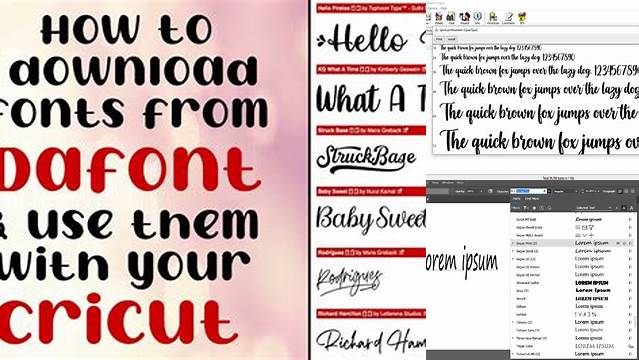
How To Download Fonts To Your Computer: A Simple Guide
Hey guys! Ever wondered how to download fonts to make your documents and designs pop? It's easier than you think! This guide will walk you through the process, step by step, so you can unleash your creativity with a fresh new typeface. Whether you're a seasoned designer or just starting out, having a variety of fonts at your fingertips is essential. From professional reports to eye-catching presentations, the right font can make all the difference. So, let's dive in and explore the world of font downloading!
2. Finding Reputable Font Sources
One of the most important steps when downloading fonts is finding reputable sources. The internet is full of websites offering free fonts, but not all of them are safe. Some may contain malware or viruses that can harm your computer. Others may offer fonts that are of poor quality or have licensing restrictions that you're not aware of. To avoid these issues, stick to well-known and trusted font providers. Some popular options include Google Fonts, Adobe Fonts, Font Squirrel, and MyFonts. These websites offer a wide selection of high-quality fonts, both free and paid, and they have a reputation for being safe and reliable. Google Fonts is particularly great for beginners, as it offers a vast library of free fonts that are easy to download and use. Adobe Fonts is another excellent option, especially if you're an Adobe Creative Cloud subscriber, as it's included in your subscription. Font Squirrel is a fantastic resource for free fonts that are also licensed for commercial use, which means you can use them in your projects without worrying about copyright issues. MyFonts is a premium font marketplace with a huge selection of fonts from various foundries, offering both free and paid options. When you're browsing these sites, make sure to read the licensing information carefully to understand how you can use the fonts you download. Some fonts may be free for personal use but require a commercial license for business projects. Others may have restrictions on how you can modify or redistribute the font files. By choosing reputable sources and paying attention to licensing, you can ensure that you're downloading fonts safely and legally. Remember, the effort you put into finding reliable sources will pay off in the long run, saving you from potential headaches and ensuring your projects look their best. So, take your time, explore the options, and make informed choices.
3. Using Google Fonts
Google Fonts is a treasure trove for anyone looking to download fonts for free. It's a vast library of open-source fonts that are incredibly easy to use and compatible with most systems. To get started, simply visit the Google Fonts website. You'll find a clean and intuitive interface that allows you to browse fonts by category, style, and popularity. You can even type in sample text to see how a font will look in your own projects. Once you've found a font you like, click on it to view its details. You'll see different weights and styles available, such as regular, bold, italic, and more. To download the font, click the "Download family" button. The font files will be downloaded in a zip file. Extract the contents of the zip file, and you'll find the .ttf or .otf font files. Now, you can install these fonts on your computer. The process for installing fonts varies slightly depending on your operating system, but it's generally quite straightforward. On Windows, you can right-click on the font file and select "Install." On macOS, you can double-click the font file, and it will open in Font Book, where you can click the "Install Font" button. Google Fonts also offers a convenient way to embed fonts directly into your website using a simple code snippet. This eliminates the need to download the fonts and upload them to your server, making it a great option for web designers. With its vast selection of high-quality fonts and user-friendly interface, Google Fonts is an excellent resource for anyone looking to expand their font library. It's a fantastic starting point for beginners and a go-to resource for experienced designers alike. The best part? It's completely free, so you can experiment with different fonts without breaking the bank. So, whether you're working on a personal project or a professional design, Google Fonts is a resource you'll want to keep in your back pocket.
7. Troubleshooting Font Issues
Sometimes, even when you follow all the steps correctly, you might run into issues when downloading fonts. Don't worry, it happens to the best of us! Let's troubleshoot some common problems and how to fix them. One common issue is that the font doesn't appear in your application's font list after you've installed it. This can be frustrating, but there are a few things you can try. First, make sure you've actually installed the font correctly. Double-check that the font file is in the correct folder (C:\Windows\Fonts on Windows, or Font Book on macOS) and that it's not corrupted. Next, try restarting the application you're using. Sometimes, applications need to be restarted to recognize newly installed fonts. If that doesn't work, try restarting your computer. This can help refresh the system's font cache and ensure that the font is properly loaded. Another issue you might encounter is font corruption. This can happen if the font file is damaged during the download process or if there's a problem with your system's font cache. If you suspect font corruption, try downloading the font again from a reputable source. If the problem persists, you may need to clear your font cache. The process for clearing the font cache varies depending on your operating system, so do a quick search online for instructions specific to your system. Sometimes, fonts may not display correctly in certain applications. This can be due to compatibility issues or font format problems. If you're using an older application, it may not support newer font formats like OpenType (.otf). In this case, try using a TrueType (.ttf) version of the font instead. If you're still having trouble, check the application's documentation or support resources for troubleshooting tips. Dealing with font issues can be a bit of a headache, but with a little patience and persistence, you can usually resolve the problem. Remember to always download fonts from reputable sources and keep your system's font cache clean to prevent issues from occurring in the first place.
8. Using Font Management Software
If you're a font enthusiast with a growing collection, you might find that managing your fonts becomes a bit of a hassle. That's where font management software comes in! These tools can help you organize, activate, and deactivate fonts, making it easier to find the perfect typeface for your projects. Font management software can also help you avoid font conflicts, which can occur when you have multiple versions of the same font installed. By activating only the fonts you need for a specific project, you can keep your system running smoothly and prevent unexpected issues. There are several font management software options available, both free and paid. Some popular choices include FontBase, NexusFont, and FontExplorer X Pro. FontBase is a free and user-friendly option that's great for beginners. It allows you to preview fonts, create font sets, and activate/deactivate fonts with ease. NexusFont is another free option that offers a wide range of features, including font tagging, duplicate font detection, and font backups. FontExplorer X Pro is a paid option that's geared towards professional designers. It offers advanced features like font auto-activation, font server support, and integration with Adobe Creative Cloud applications. When choosing font management software, consider your specific needs and budget. If you're just starting out, a free option like FontBase or NexusFont might be a good choice. If you're a professional designer with a large font library, you might benefit from the advanced features of a paid option like FontExplorer X Pro. Using font management software can save you time and frustration by making it easier to find and manage your fonts. It can also help you keep your system running smoothly and prevent font-related issues. So, if you're serious about fonts, consider investing in a good font management tool. It's a small investment that can pay off big in terms of productivity and organization.
9. Creating Font Pairings
Choosing the right font for your project is important, but did you know that pairing fonts effectively can take your designs to the next level? Font pairing is the art of combining two or more fonts that complement each other, creating a visually appealing and harmonious design. A well-chosen font pairing can enhance readability, establish a visual hierarchy, and convey the right mood and tone for your project. On the other hand, a poorly chosen font pairing can be jarring and confusing, detracting from your message. So, how do you create effective font pairings? One approach is to combine fonts from different font families. For example, you might pair a serif font (like Times New Roman or Garamond) with a sans-serif font (like Arial or Helvetica). Serif fonts are typically used for body text, as their serifs (the small strokes at the ends of the letters) make them easier to read in large blocks of text. Sans-serif fonts are often used for headings and titles, as their clean lines make them stand out. Another approach is to pair fonts with contrasting styles. For example, you might pair a bold, modern font with a delicate, script font. The contrast in styles can create visual interest and make your design more dynamic. However, it's important to use contrast judiciously. Too much contrast can be overwhelming, so aim for a balance between contrast and harmony. You can also pair fonts from the same font family but with different weights or styles. For example, you might pair a bold version of a font with a regular or light version. This can create a subtle visual hierarchy without introducing too much contrast. There are many online resources that can help you find font pairings. Websites like FontPair and Canva's Font Combinations tool offer suggestions for fonts that work well together. You can also experiment with different font pairings on your own. Try downloading a few different fonts and see how they look together in your designs. The key is to find fonts that complement each other and convey the message you want to send.
10. Font Weight and Style
When you download fonts, you'll often notice that they come in various weights and styles. Understanding these variations is crucial for effective typography and design. Font weight refers to the thickness of the font's strokes. Common font weights include light, regular, bold, and extra bold. The weight you choose can impact the readability and visual impact of your text. Lighter weights are often used for body text, as they're easier on the eyes for long passages. Bolder weights are typically used for headings and titles, as they help draw attention and create a visual hierarchy. Font style refers to the variations within a font family, such as italic, oblique, and condensed. Italic is a slanted version of the font, often used for emphasis or to differentiate text. Oblique is similar to italic but is typically a more artificial slant, often created by simply slanting the regular font. Condensed fonts are narrower versions of the font, allowing you to fit more text in a limited space. When choosing font weight and style, consider the purpose of your text and the overall design. For body text, readability is paramount, so stick to lighter weights and avoid overly stylized fonts. For headings and titles, you can be more adventurous with font weight and style, but make sure the chosen variations complement the overall design. Using different font weights and styles can help you create a visual hierarchy in your design. By using bolder weights for headings and lighter weights for body text, you can guide the reader's eye and make your content more engaging. It's also important to be consistent with your use of font weight and style. Choose a few variations within a font family and stick to them throughout your project. This will create a cohesive and professional look. Experiment with different font weights and styles to see how they impact your designs. Try using bold for keywords or phrases you want to emphasize, or italic for quotes or citations. The possibilities are endless, so have fun and explore the world of font variations!
11. Web Fonts vs. Desktop Fonts
When you're downloading fonts, you might encounter the terms "web fonts" and "desktop fonts." It's important to understand the difference between these two types of fonts, as they're designed for different purposes. Desktop fonts are the traditional fonts that you install on your computer's operating system. These fonts are used for creating documents, presentations, and other printed materials. They're also used by desktop applications like word processors, graphic design software, and web design tools. Web fonts, on the other hand, are specifically designed for use on websites. They're optimized for web browsers and are typically served from a web server. This means that website visitors don't need to have the font installed on their computer in order to see it. Web fonts are typically available in formats like WOFF (Web Open Font Format) and WOFF2, which are designed to be compressed and efficient for web use. Using web fonts can significantly improve the appearance of your website, as you're not limited to the standard system fonts that everyone has installed. However, it's important to choose web fonts carefully, as using too many fonts or fonts that are too large can slow down your website's loading time. When downloading fonts for web use, make sure you're getting the correct format (WOFF or WOFF2) and that you have the necessary licenses to use the font on your website. Many font foundries offer web font licenses separately from desktop font licenses. Services like Google Fonts and Adobe Fonts make it easy to use web fonts on your website. They provide code snippets that you can add to your website's HTML to load the fonts automatically. This eliminates the need to download the font files and upload them to your server. In summary, desktop fonts are for use on your computer, while web fonts are for use on websites. Choose the appropriate type of font for your intended use, and make sure you have the necessary licenses.
12. Free vs. Paid Fonts
One of the first decisions you'll face when downloading fonts is whether to go for free or paid options. Both free and paid fonts have their pros and cons, so it's important to weigh your options carefully. Free fonts are a great option for personal projects, budget-conscious designers, and anyone just starting out. There are many websites that offer high-quality free fonts, such as Google Fonts and Font Squirrel. Free fonts can be a great way to expand your font library without spending any money. However, it's important to be aware of the limitations of free fonts. Some free fonts may have limited character sets or styles, and they may not be suitable for commercial use. Always check the licensing terms before using a free font in a project. Paid fonts, on the other hand, offer a wider range of options and often come with more features and better support. Paid fonts are typically designed by professional type designers and are of higher quality than most free fonts. They also often come with more weights, styles, and language support. If you're working on a professional project or need a specific font for branding purposes, paid fonts are often the best choice. Paid fonts also come with commercial licenses, which allow you to use the font in a wider range of projects without worrying about copyright issues. When choosing between free and paid fonts, consider your budget, the scope of your project, and the quality you need. If you're working on a personal project or have a limited budget, free fonts can be a great option. But if you need a high-quality font for a professional project, paid fonts are usually the way to go. Remember to always download fonts from reputable sources, whether they're free or paid. This will help ensure that you're getting a high-quality font and that you're not downloading any malware or viruses.
13. Font File Sizes
When you download fonts, you'll notice that the file sizes can vary significantly. Font file size is an important consideration, especially for web fonts, as it can impact website loading times. Larger font files can slow down your website, which can negatively affect user experience and SEO. There are several factors that can influence font file size. The font format (e.g., TTF, OTF, WOFF, WOFF2) plays a role, as some formats are more compressed than others. The number of characters and glyphs in the font also affects file size. Fonts with extensive character sets and ligatures tend to be larger. Font complexity and design also contribute to file size. Intricate and detailed fonts generally have larger file sizes than simpler fonts. For web fonts, it's crucial to optimize font file sizes to ensure fast loading times. WOFF and WOFF2 are the preferred formats for web fonts, as they offer excellent compression. You can also use font subsetting to reduce file size. Font subsetting involves removing unused characters from the font file, such as characters for languages you don't support. This can significantly reduce the file size without affecting the appearance of your website. Another technique for optimizing font file size is to use variable fonts. Variable fonts allow you to pack multiple font weights and styles into a single font file, reducing the overall file size compared to using separate font files for each weight and style. When downloading fonts for web use, always check the file size and try to optimize it as much as possible. Use WOFF or WOFF2 format, consider font subsetting, and explore variable fonts. By optimizing font file sizes, you can ensure that your website loads quickly and provides a great user experience. For desktop fonts, file size is less of a concern, but it's still a good idea to keep your font library organized and avoid downloading fonts you don't need.
14. Previewing Fonts
Before you commit to downloading fonts, it's always a good idea to preview them. Previewing fonts allows you to see how they look in different sizes and styles, and whether they're a good fit for your project. Most font websites and font management software offer font preview tools. These tools allow you to type in sample text and see how it looks in the font. You can usually adjust the font size, weight, and style to get a better sense of how the font will look in different contexts. When previewing fonts, pay attention to the font's readability, legibility, and overall aesthetic. Is the font easy to read at different sizes? Does it have a clean and professional look? Does it convey the mood and tone you're aiming for? It's also important to preview the font in the context of your project. If you're designing a website, see how the font looks on different devices and browsers. If you're designing a logo, see how the font looks at different scales. Some font websites offer advanced preview features, such as the ability to preview font pairings and see how the font looks with different color combinations. These features can be helpful for making design decisions. Font management software often includes advanced preview features as well. You can preview fonts side-by-side, compare different versions of the same font, and create font sets for different projects. Before you download fonts, take the time to preview them thoroughly. This will help you avoid downloading fonts that you don't need and ensure that you choose fonts that are a good fit for your projects. Previewing fonts is an essential step in the font selection process, and it can save you time and effort in the long run.
15. Font Foundries and Designers
When you start downloading fonts regularly, you'll likely come across the names of font foundries and designers. Font foundries are companies that design and sell fonts, while font designers are the individuals who create the fonts themselves. Getting to know font foundries and designers can help you discover new and interesting fonts, and it can also help you support the creators of the fonts you love. There are many different font foundries and designers out there, each with their own unique style and approach. Some foundries specialize in specific types of fonts, such as display fonts or script fonts, while others offer a wider range of styles. Some designers are known for their classic and elegant typefaces, while others are known for their more experimental and contemporary designs. Exploring the work of different font foundries and designers can be a great way to expand your font knowledge and discover new fonts that you might not have found otherwise. Many font foundries have websites where you can browse their fonts, learn about their designers, and read about their design process. You can also follow font foundries and designers on social media to stay up-to-date on their latest releases and projects. When you download fonts from a font foundry or designer, you're not just buying a font file; you're supporting the creative work of the people who made it. Font design is a skilled and time-consuming process, and font designers deserve to be compensated for their work. By purchasing fonts from reputable foundries and designers, you're helping to ensure that they can continue to create beautiful and innovative typefaces. If you're looking for inspiration, consider checking out some well-known font foundries like Hoefler&Co, Monotype, and Adobe Type. You can also explore the work of individual font designers like Jessica Hische, Tobias Frere-Jones, and Erik Spiekermann. Getting to know font foundries and designers is a great way to deepen your appreciation for typography and support the creative community.
16. OpenType Features
When you download fonts, you might come across the term "OpenType features." OpenType is a font format that offers a wide range of advanced typographic features, allowing for more sophisticated and nuanced typography. Understanding OpenType features can help you unlock the full potential of your fonts and create more visually appealing designs. OpenType features include things like ligatures, swashes, stylistic alternates, and contextual alternates. Ligatures are special characters that combine two or more letters into a single glyph, such as "fi" or "fl." Swashes are decorative flourishes that can be added to certain characters. Stylistic alternates are alternative glyphs for certain characters that can be used to create different looks. Contextual alternates are glyphs that change depending on the surrounding characters, allowing for more natural-looking typography. Not all fonts support OpenType features, so it's important to check whether a font has these features before using it in a project. You can usually find this information on the font foundry's website or in the font's documentation. To access OpenType features in your applications, you'll typically need to use a program that supports them, such as Adobe InDesign, Adobe Illustrator, or QuarkXPress. These programs allow you to enable and disable OpenType features through their typography panels. Using OpenType features can add a touch of elegance and sophistication to your designs. Ligatures can make text more readable and visually appealing, while swashes and stylistic alternates can add a unique flair. Contextual alternates can help create more natural-looking typography, especially in script fonts. When downloading fonts, consider choosing fonts that support OpenType features if you want to take your typography to the next level. Experiment with different OpenType features to see how they can enhance your designs. However, it's important to use these features judiciously, as overuse can make your typography look cluttered and overwhelming.
17. Variable Fonts
Variable fonts are a relatively new font technology that's changing the way we think about typography. When you download fonts, you might encounter variable fonts, and it's worth understanding what they are and how they work. Variable fonts allow you to pack multiple font weights, styles, and other variations into a single font file. This is a significant improvement over traditional font formats, where each weight and style requires a separate font file. Variable fonts use a system of axes to define the different variations within a font. Common axes include weight, width, slant, and optical size. By adjusting these axes, you can create a wide range of font variations from a single font file. For example, you could adjust the weight axis to create a light, regular, bold, or extra bold version of the font. Or you could adjust the width axis to create a condensed or expanded version. The main advantage of variable fonts is their file size. Because they pack multiple variations into a single file, they're typically much smaller than traditional font formats. This can be a significant benefit for web fonts, as smaller file sizes lead to faster loading times. Variable fonts also offer greater flexibility and control over typography. You can fine-tune font variations to perfectly match your design needs, rather than being limited to the predefined weights and styles. Not all applications and browsers fully support variable fonts yet, but support is growing rapidly. Most modern browsers support variable fonts, and many design applications are starting to add support as well. When downloading fonts, consider choosing variable fonts if you want to take advantage of their file size benefits and typographic flexibility. Variable fonts are the future of typography, and they're worth exploring if you're serious about font design and web performance.
18. Font Embedding
Font embedding is the process of including font files within a document or website. This ensures that the document or website will display correctly, even if the user doesn't have the font installed on their computer. When you download fonts and use them in your projects, you need to consider how you'll handle font embedding. There are several ways to embed fonts, each with its own advantages and disadvantages. For documents, such as PDFs, font embedding is typically done automatically by the application that creates the document. When you save a document as a PDF, the application will usually embed the fonts used in the document, ensuring that it will display correctly on any computer. For websites, font embedding is a bit more complex. You can use web fonts, which are specifically designed for use on websites, or you can use CSS to embed fonts directly into your website's code. Web fonts are the preferred method for embedding fonts on websites, as they're optimized for web browsers and offer better performance. You can use services like Google Fonts or Adobe Fonts to easily embed web fonts on your website. Another option is to use the @font-face rule in CSS to embed fonts directly into your website's code. This allows you to use any font you want, but it can be more complex to set up and may not be as performant as using web fonts. When downloading fonts for web use, make sure you have the necessary licenses to embed the fonts on your website. Some font licenses restrict font embedding, so it's important to check the licensing terms before using a font. Font embedding is an essential part of ensuring that your documents and websites display correctly. By embedding fonts, you can ensure that your designs look the way you intended, regardless of the user's system or browser.
19. Font Converters
Sometimes, you might need to convert a font from one format to another. This is where font converters come in handy. Font converters are tools that allow you to change the format of a font file, such as converting a TTF font to an OTF font or vice versa. When you download fonts, you might encounter different font formats, and you might need to convert them to a format that's compatible with your applications or website. There are several reasons why you might need to use a font converter. You might need to convert a font to a web-friendly format, such as WOFF or WOFF2. Or you might need to convert a font to a format that's compatible with an older application. There are many online font converters available, both free and paid. Some popular options include Online Font Converter, Font Squirrel's Webfont Generator, and TransType. Online font converters are typically easy to use. You simply upload your font file, choose the desired output format, and click a button to convert the font. Some online converters offer additional options, such as font subsetting and hinting. Desktop font converters offer more advanced features and control over the conversion process. They're typically paid tools, but they can be worth the investment if you need to convert fonts regularly. When using a font converter, it's important to choose a reputable tool and to check the licensing terms of the font you're converting. Some font licenses restrict font conversion, so it's important to make sure you have the necessary permissions. If you're downloading fonts for web use, it's generally best to use a web font generator that's specifically designed for creating web fonts. These tools will optimize the font files for web browsers and ensure that they load quickly. Font converters can be valuable tools for anyone who works with fonts regularly. They allow you to adapt fonts to different formats and ensure compatibility across different platforms and applications.
20. Font Backups
If you're a font enthusiast with a large collection, it's crucial to back up your fonts regularly. Font backups protect your font library from data loss due to hardware failures, software corruption, or accidental deletion. When you download fonts, you're building a valuable resource, and it's important to safeguard it. There are several ways to back up your fonts. You can manually copy your font files to an external hard drive, a cloud storage service, or a network drive. This is a simple and straightforward method, but it can be time-consuming if you have a large font library. You can also use font management software to back up your fonts. Some font management tools offer built-in backup features that allow you to easily create backups of your font library. Another option is to use a dedicated backup software that can automatically back up your entire computer, including your fonts. When creating font backups, it's important to store the backups in a safe and secure location. External hard drives and cloud storage services are both good options. If you're storing your backups online, make sure to use a reputable cloud storage provider with strong security measures. It's also a good idea to create multiple backups and store them in different locations. This will provide an extra layer of protection in case one of your backups fails. Regularly test your backups to make sure they're working correctly. Try restoring a few fonts from your backup to make sure the process is smooth and that the restored fonts are functioning properly. When you download fonts, make it a habit to back them up immediately. This will ensure that you don't lose your newly acquired fonts in case of a data loss event. Font backups are an essential part of font management. By backing up your fonts regularly, you can protect your valuable font library and avoid the frustration of losing your favorite typefaces.
21. Font Organization
Once you start downloading fonts regularly, your font library can quickly become overwhelming. That's why it's essential to have a good font organization system in place. Organizing your fonts will make it easier to find the fonts you need, prevent font conflicts, and keep your system running smoothly. There are several ways to organize your fonts. You can organize them by font family, by style, by project, or by any other criteria that makes sense to you. One common method is to organize fonts by font family. This involves creating folders for each font family and storing the different weights and styles of that family within the folder. For example, you might have a folder for Arial, with subfolders for Arial Regular, Arial Bold, Arial Italic, and so on. Another method is to organize fonts by style, such as serif, sans-serif, script, and display. This can be helpful if you often search for fonts based on their style. You can also organize fonts by project. This involves creating folders for each project and storing the fonts used in that project within the folder. This can be helpful if you want to keep track of the fonts you've used in different projects. Font management software can also help you organize your fonts. These tools allow you to create font sets, tag fonts, and search for fonts based on various criteria. When organizing your fonts, it's important to be consistent with your naming conventions and folder structure. This will make it easier to find fonts in the future. It's also a good idea to remove any fonts you don't need. This will free up disk space and prevent font conflicts. Regularly review your font library and delete any fonts you no longer use. When you download fonts, take a few minutes to organize them into your existing system. This will save you time and frustration in the long run. Font organization is an ongoing process. As you add more fonts to your library, it's important to maintain your organization system to keep your fonts manageable.
22. Font Naming Conventions
When you download fonts, you'll notice that they have specific names. Understanding font naming conventions can help you identify and organize your fonts more effectively. Font names typically consist of several parts, including the font family name, the font weight, the font style, and sometimes other modifiers. The font family name is the main name of the font, such as Arial, Times New Roman, or Helvetica. The font weight indicates the thickness of the font's strokes, such as Regular, Bold, Light, or Extra Bold. The font style indicates the font's slant or other variations, such as Italic, Oblique, or Condensed. Other modifiers may be included in the font name to indicate specific features or versions of the font, such as Pro, Cyrillic, or WGL. Font names can sometimes be confusing, as different font foundries may use different naming conventions. However, there are some general rules that are commonly followed. Regular weight fonts are often simply named after the font family, such as Arial Regular or Times New Roman. Bold weight fonts are typically indicated by the word "Bold" in the font name, such as Arial Bold or Times New Roman Bold. Italic style fonts are typically indicated by the word "Italic" in the font name, such as Arial Italic or Times New Roman Italic. Oblique style fonts are similar to italic fonts, but they're often created by simply slanting the regular font. They're typically indicated by the word "Oblique" in the font name. Condensed fonts are narrower versions of the font, and they're typically indicated by the word "Condensed" in the font name. When you download fonts, pay attention to the font names and try to understand the different parts of the name. This will help you identify the font's characteristics and organize it more effectively. It's also a good idea to use consistent naming conventions when organizing your fonts. This will make it easier to find the fonts you need in the future.
23. Font Metrics
Font metrics are the measurements that define the size and spacing of characters in a font. Understanding font metrics can help you create more consistent and visually appealing typography. When you download fonts and use them in your designs, font metrics play a crucial role in how the text looks and how it interacts with other elements on the page. Key font metrics include: * Point size: The overall size of the font, measured in points (1 point = 1/72 inch). * Leading: The vertical space between lines of text. * Tracking: The horizontal space between characters in a line of text. * Kerning: The adjustment of space between specific pairs of characters to improve readability. * X-height: The height of the lowercase x in a font, which influences the perceived size and legibility of the font. * Ascender height: The height of the part of a letter that extends above the x-height, such as the top of the letters